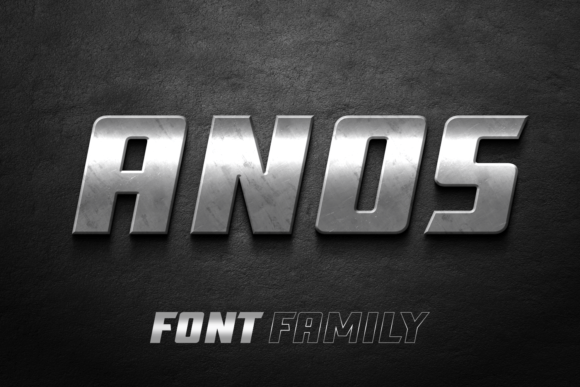
Bring Your Designs to Life with the Unapologetic Charm of Anos Font
Have you ever stared at a blank canvas, feeling the creative juices flowing, but struggling to find the perfect font to bring your vision to life? You’re not alone! As designers, we’ve all been there. But what if I told you that there’s a font that can take your designs from bland to grand, with just a single click?
Meet Anos Font, a bold and thick lettered font that’s sure to make a statement. Designed to be eye-catching and attention-grabbing, Anos Font is perfect for designers who want to add a touch of personality to their projects. Whether you’re creating a logo, a poster, or a social media graphic, Anos Font is the perfect addition to your design arsenal.
- Unique Characteristics: Anos Font features a distinctive, modern design with clean lines and geometric shapes, making it ideal for use in digital and print media.
Anos Font Review
Overall, I’m quite impressed with the Anos Font, a modern sans-serif typeface designed for digital screens. ✨ One of the standout features is its clarity and readability, making it perfect for body text and digital interfaces. The font’s clean lines and geometric shapes give it a sleek and futuristic feel.
Another plus is the Anos Font’s versatility. ✨ It’s suitable for a wide range of applications, from corporate branding to web design and mobile apps. The font is also highly customizable, allowing designers to adjust the weight, style, and spacing to suit their specific needs.
- Highly readable and clear on digital screens
- Modern and sleek design with a geometric feel
- Very versatile and suitable for various applications
- Customizable to suit specific design needs
- Some users may find the font too minimalist or lacking in personality
- Not ideal for use in print materials, where its digital focus may become apparent
- May not be as effective in situations where a more traditional or serif font is required
While Anos Font may not be the perfect solution for every design project, it’s certainly a solid choice for digital applications. Its modern design and high readability make it an excellent choice for web design, mobile apps, and digital branding. With some careful consideration of its limitations, Anos Font can be a valuable addition to any designer’s toolkit.
Anos Font is ideal for modern and minimalist designs. Some common use cases include:
- Graphic design and branding
For best results, use Anos Font in conjunction with clean and simple design elements to create a modern and professional look.